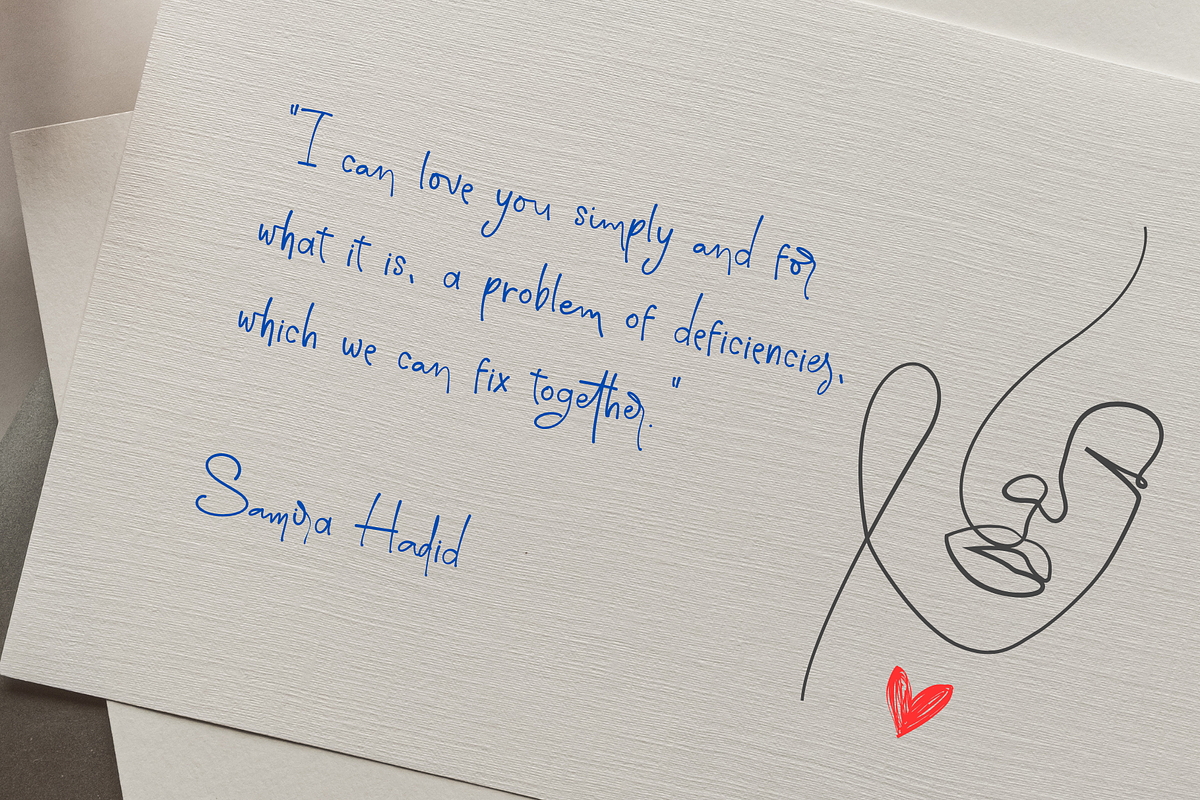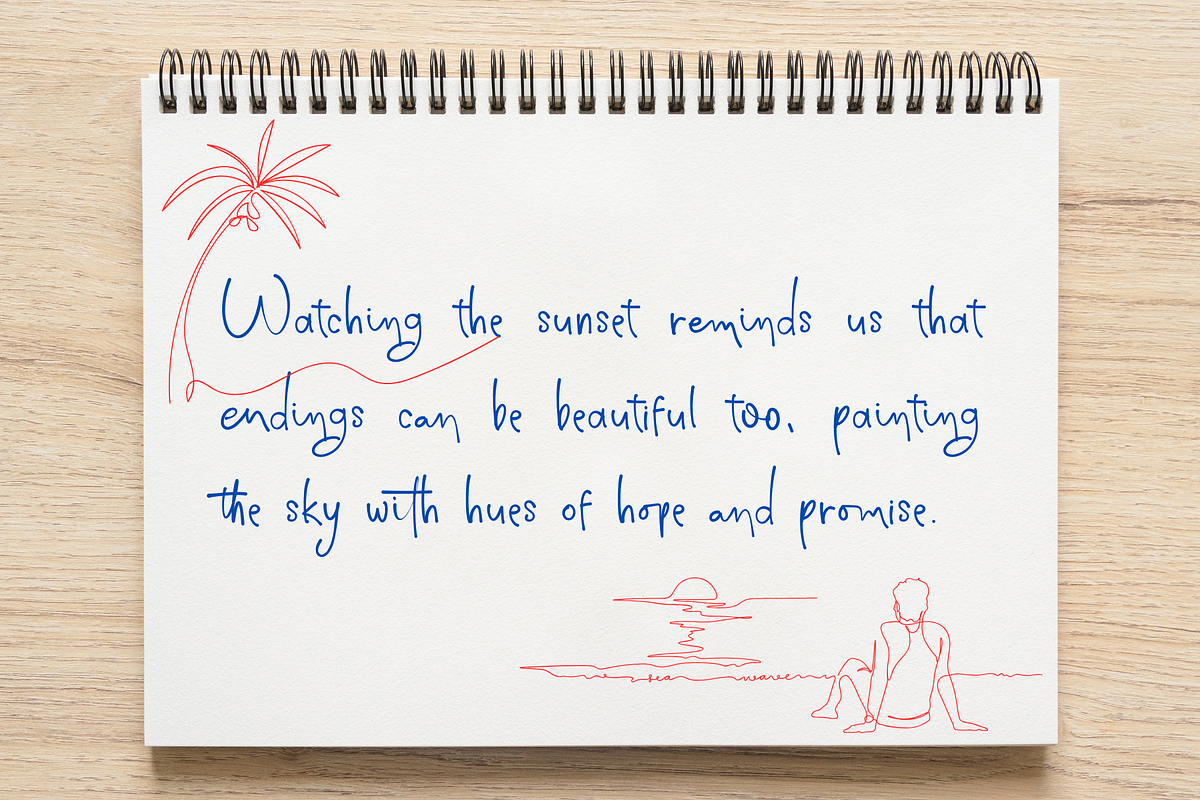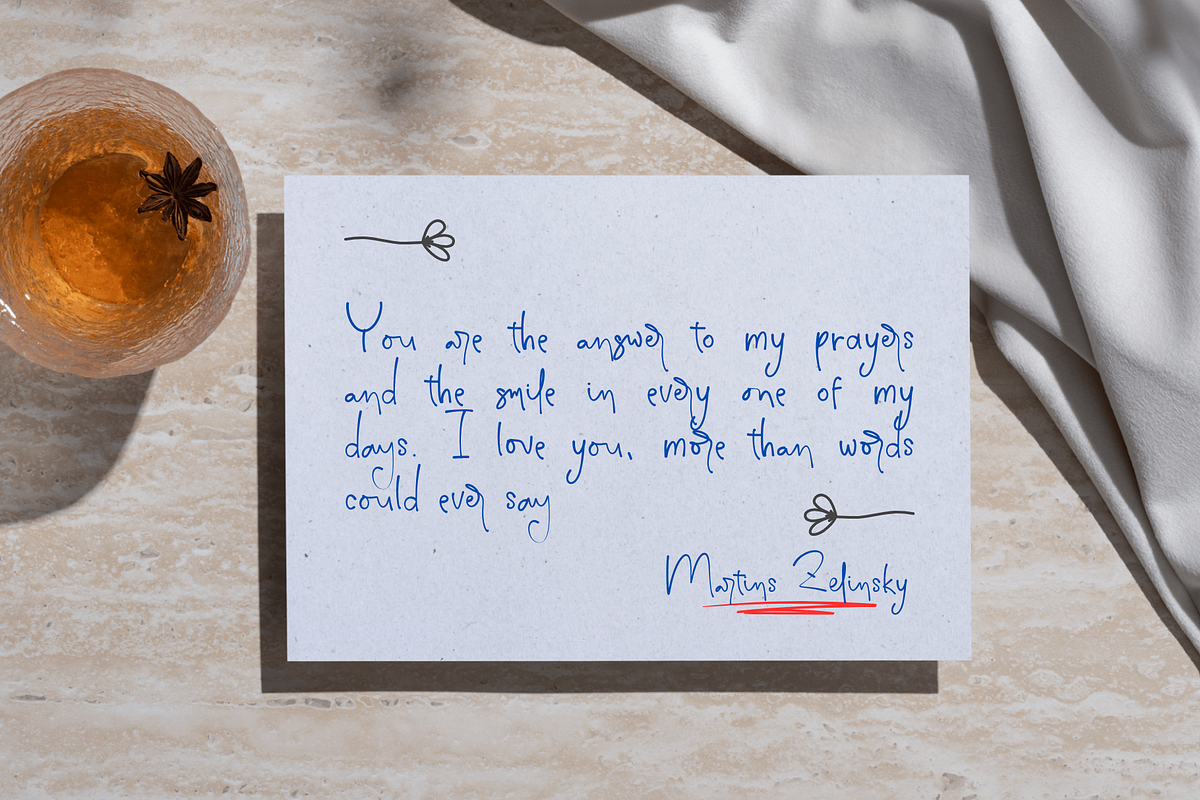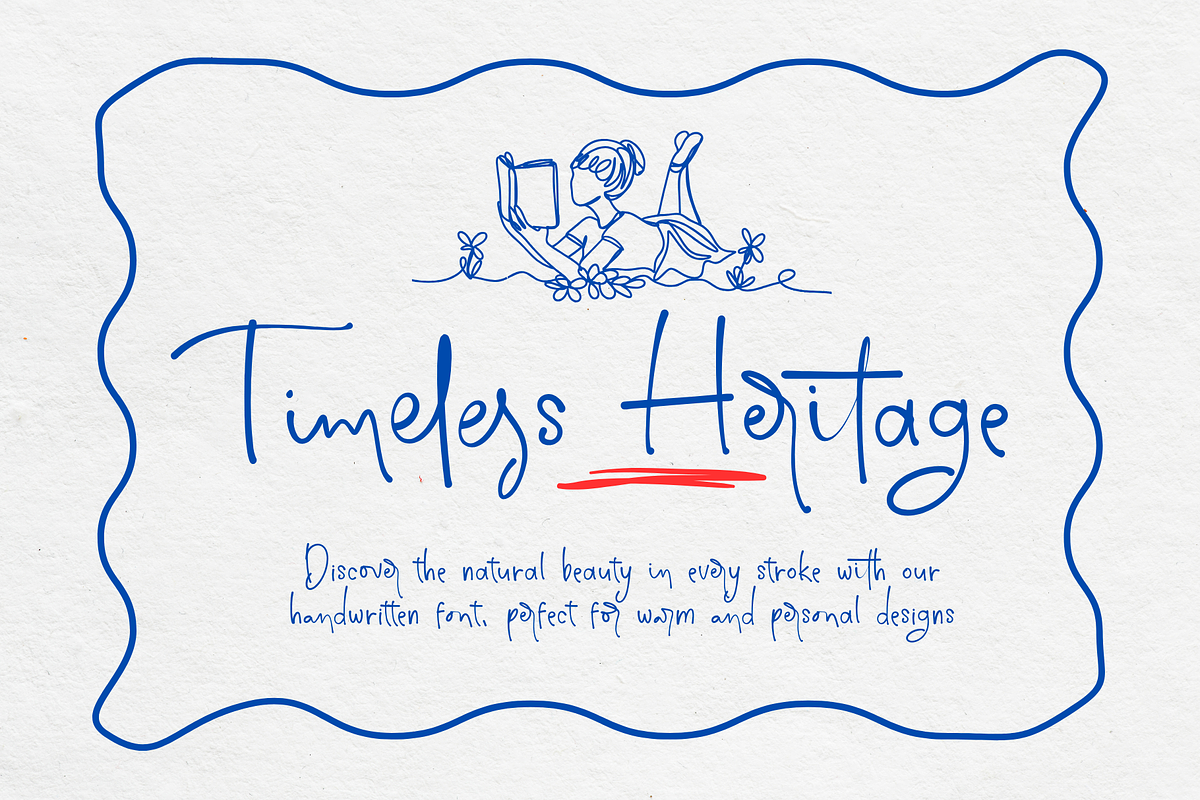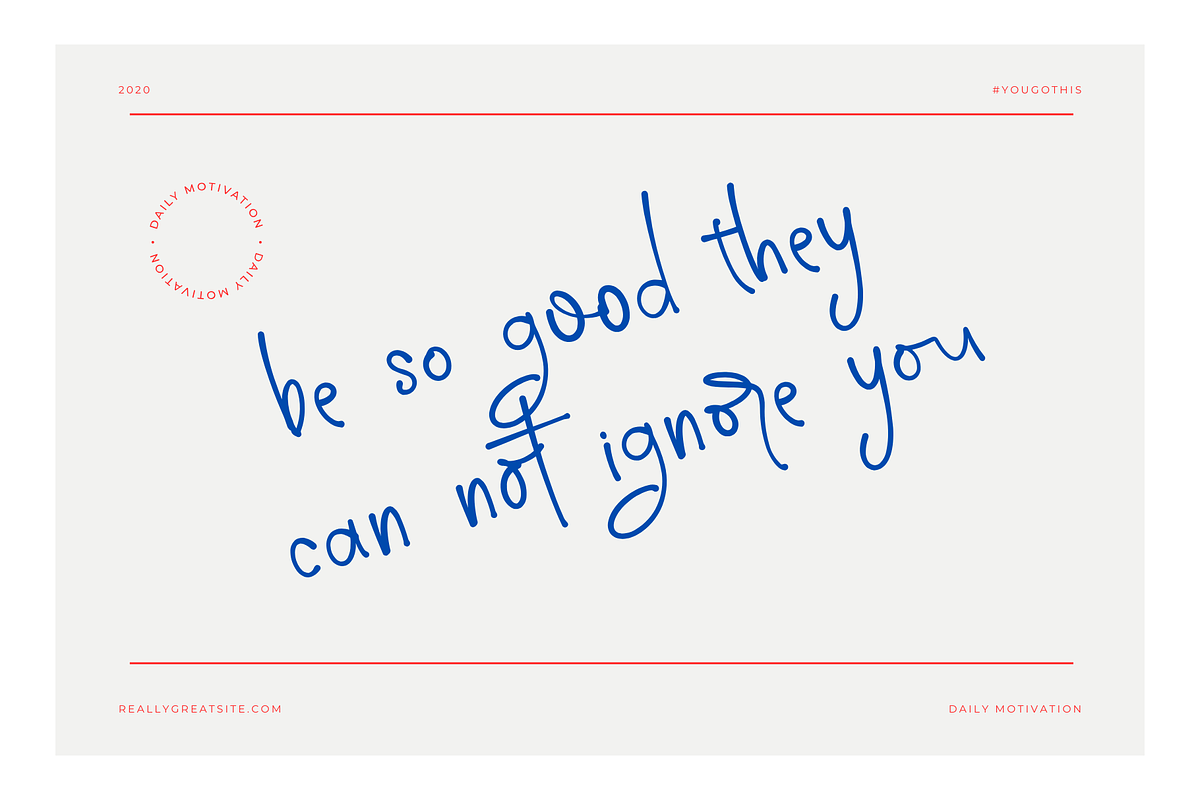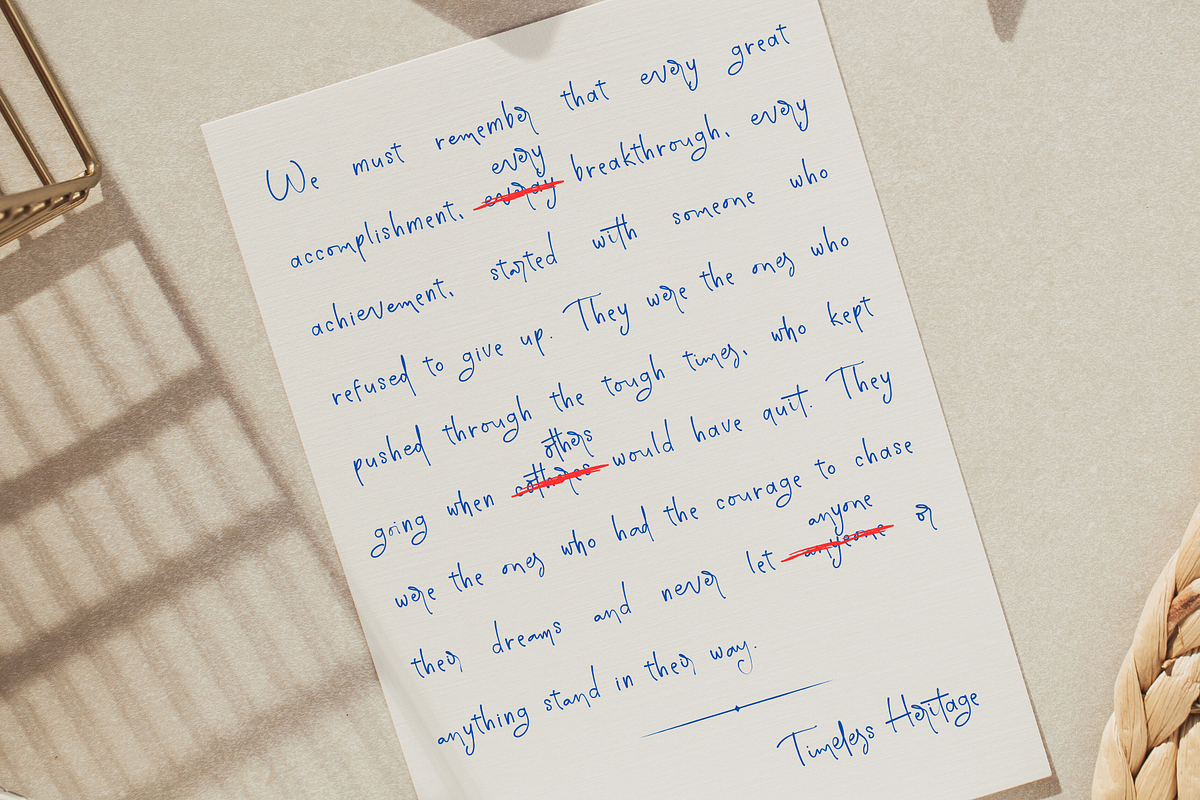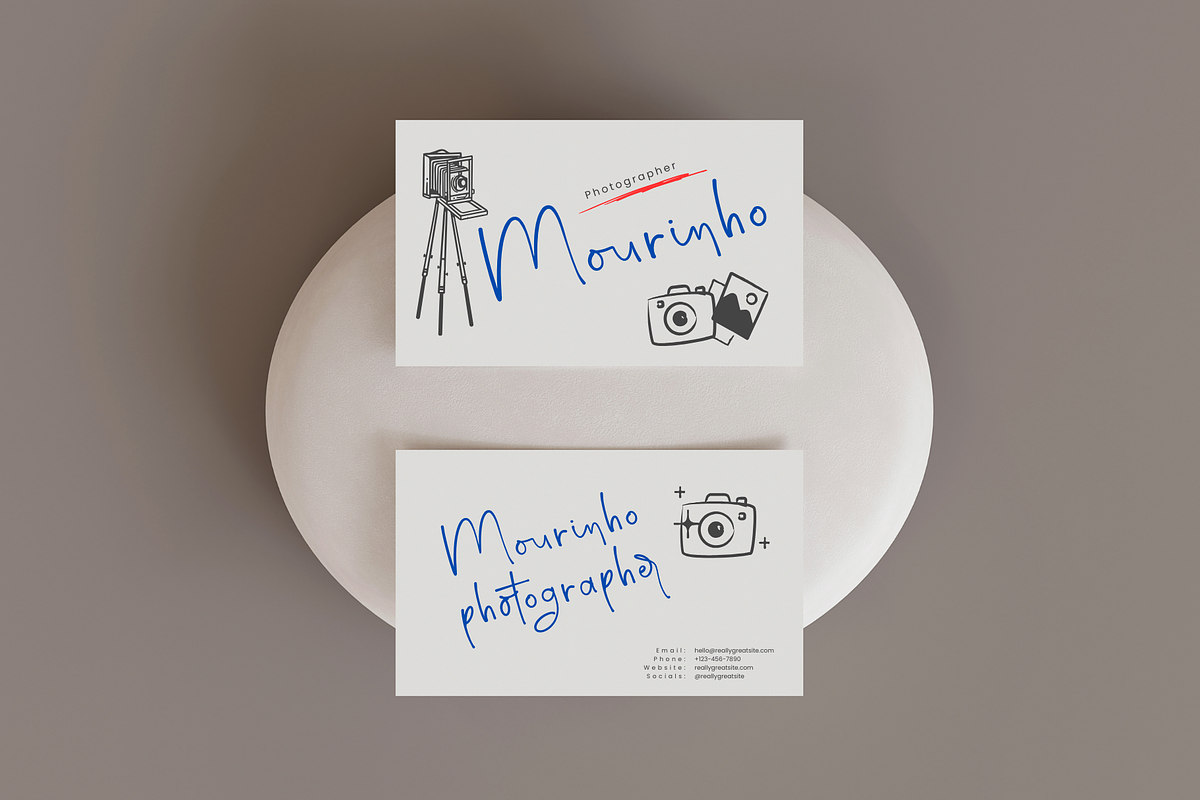
Timeless Heritage
Timeless Heritage brings a classic, handwritten elegance to your designs. With its natural pen-like strokes, beautiful ligatures, and unique character, this font captures the warmth and authenticity of true handwriting. Ideal for projects that require a touch of sophistication and personal warmth.